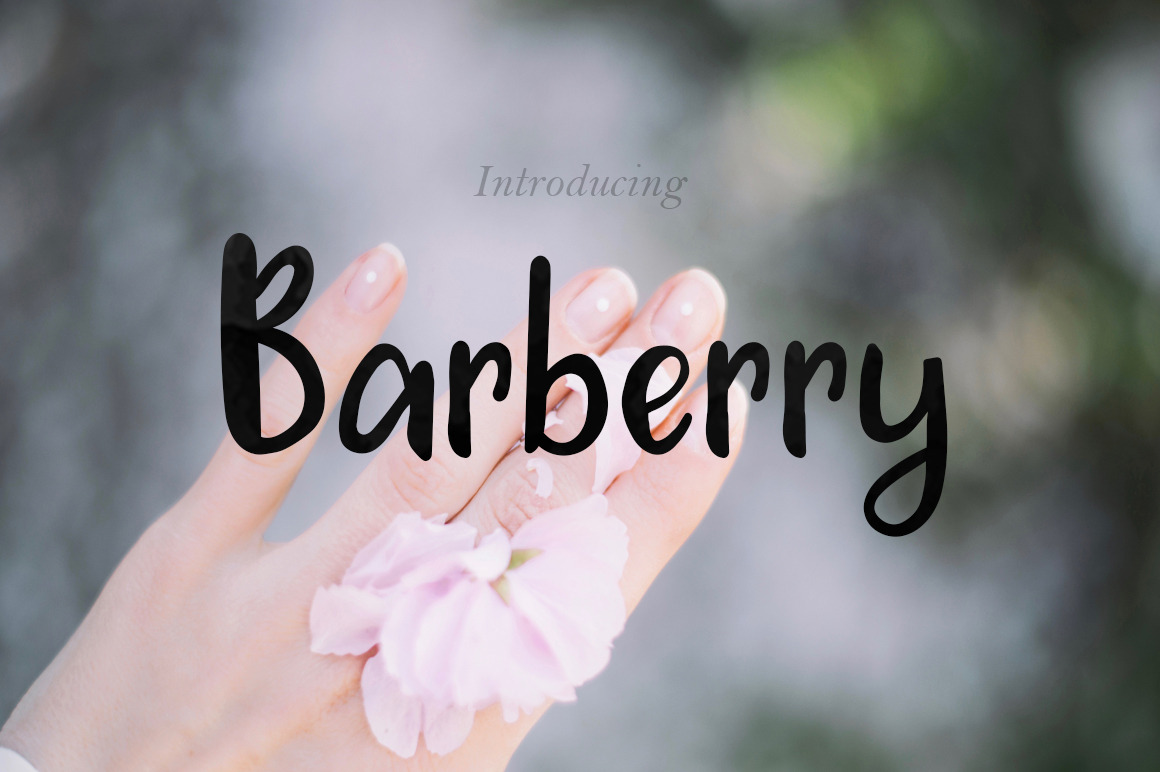
Barberry Font + Extras
Barberry is a hand drawn font with a joyful character. Great for ink or watercolor based designs, greeting cards, wedding invitation, quotes, posters and many other projects. ♥
Barberry comes with multilingual support, with accented characters for international users.
Currently supported languages: Albanian, Basque, Catalan, Cornish, Crotian, Czech, Dutch, Esperanto, Estonian, Finnish, Scots, French, Gaelic, Galician, Greek Transliterated, Hawaiian, Hungarian, Indonesian, Irish, Italian, Maltese, Polish, Portuguese, Romanian, Slovak, Slovenian, Spanish, Swedish,Turkish, Welsh.